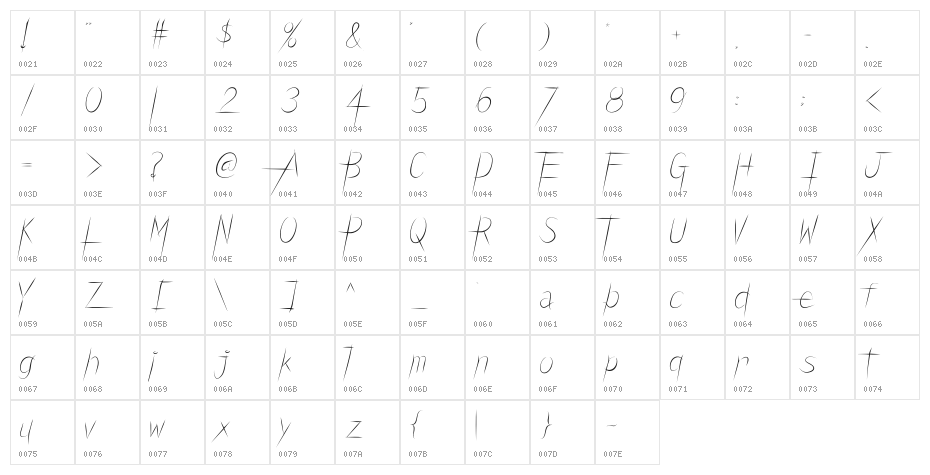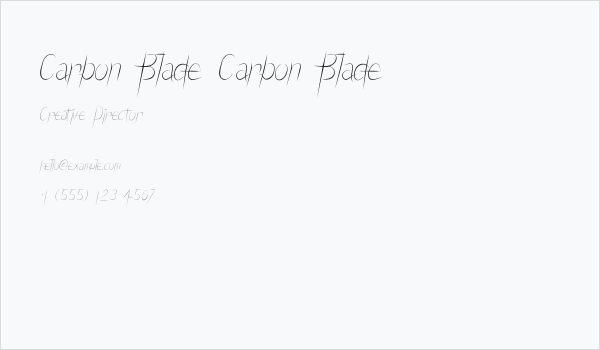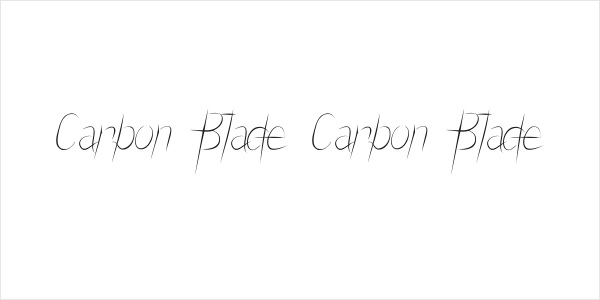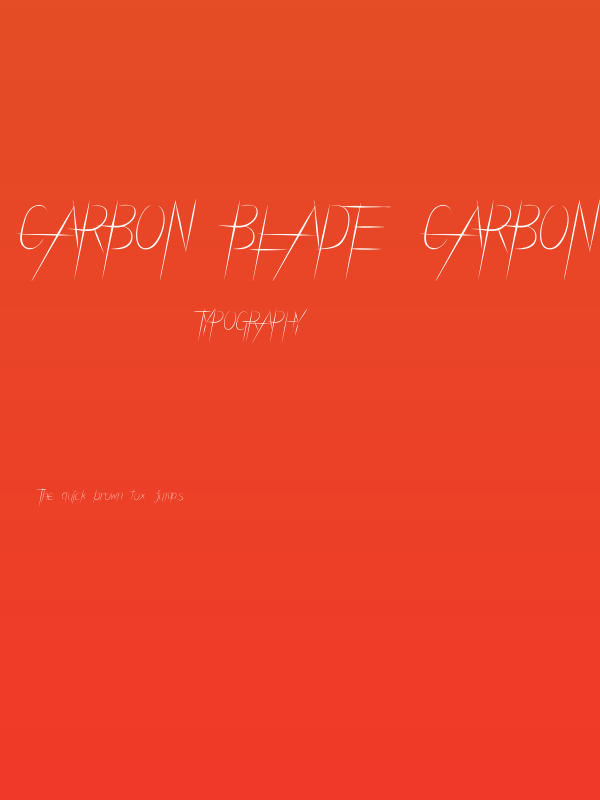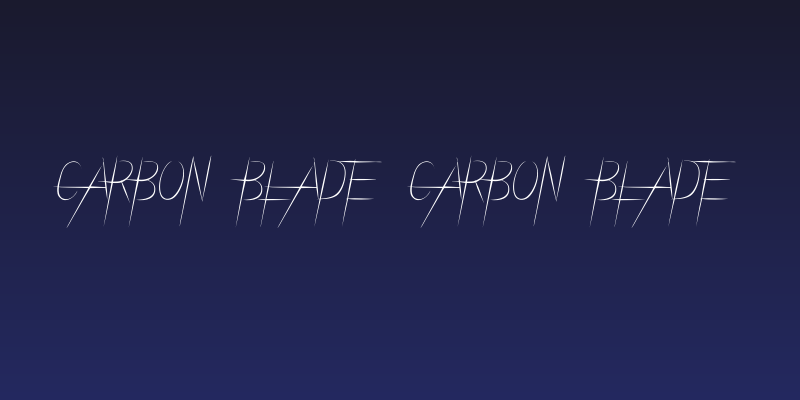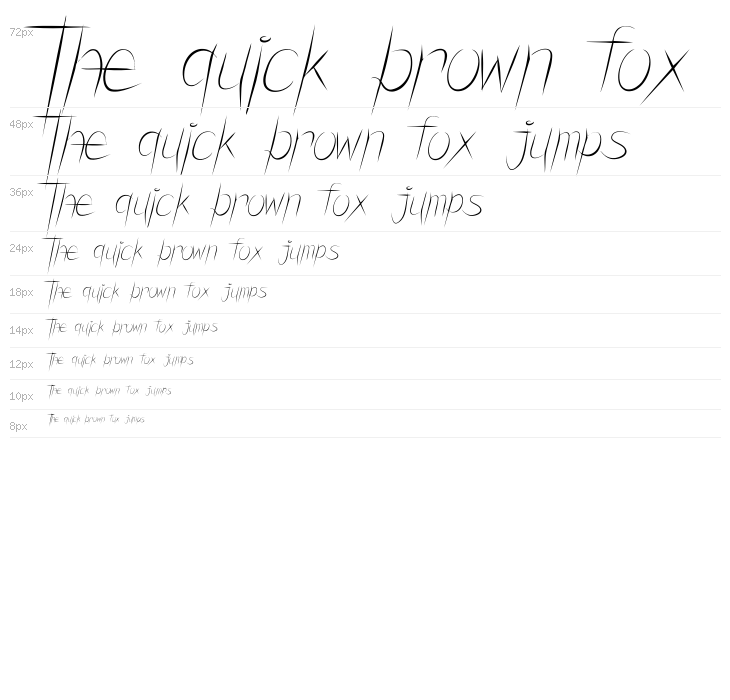
Carbon Blade Font
Carbon Blade Description
This font features a distinctive, sharp, and angular design that gives it a modern and edgy appearance. The characters are elongated with thin, pointed strokes, creating a sense of movement and dynamism. The uppercase letters are tall and slender, while the lowercase letters maintain a consistent style with a slightly more rounded form. Numbers and special characters follow the same angular theme, ensuring uniformity across the font. The overall look is sleek and futuristic, making it suitable for projects that require a bold and unconventional style.
Proposed ProjectsIdeal for futuristic branding, edgy posters, modern art projects, and innovative product packaging.